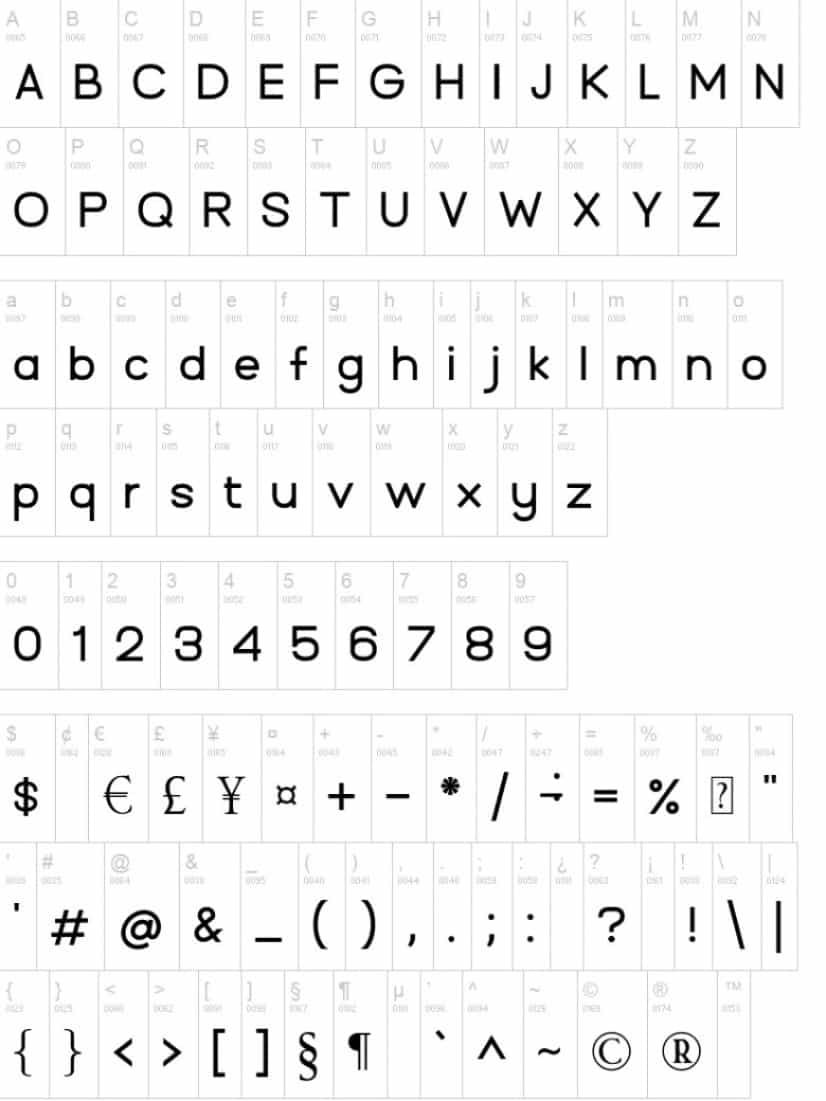
Another impressive free for download font named Branding Pro Font by Johandika Syahputra Lubis is a sans serif font which contains uppercase letters and some exclusive symbols.